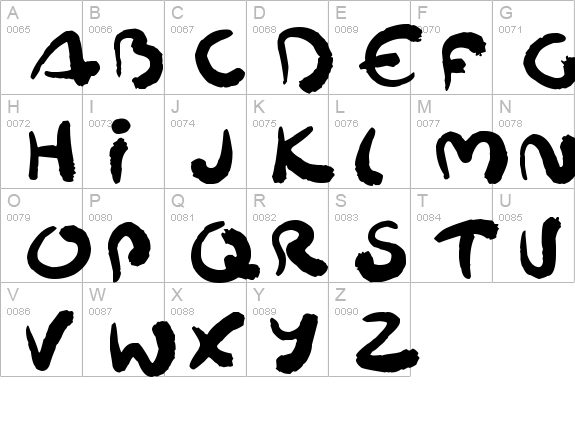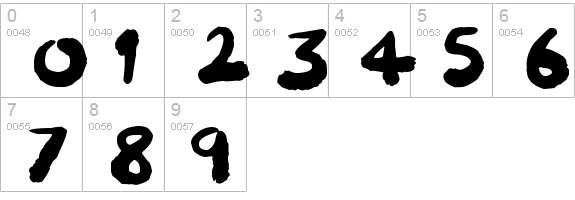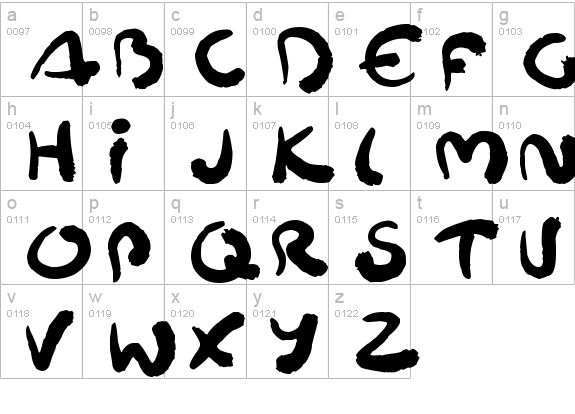
Squiggler Font Details
Squiggler is a free for personal use font in the Script category, designed by Darrell Flood. It has been downloaded 52 times and is available for Windows, Mac and Linux.
Squiggler font is a whimsical and playful typeface that adds a touch of fun to any design project. Its unique squiggly lines and curves give a hand-drawn feel, making it perfect for children's books, greeting cards, and other creative ventures. This font is not only eye-catching but also versatile, suitable for both digital and print applications.